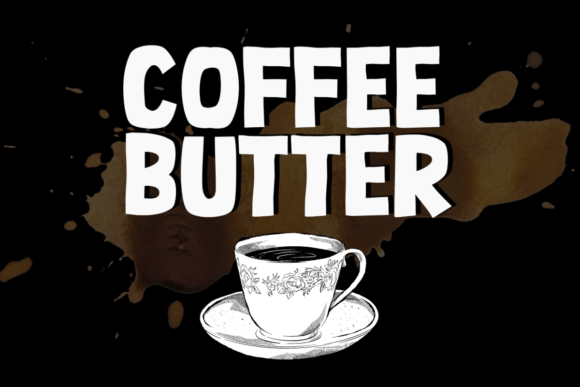
Introducing Coffee Butter Font, the ultimate choice for adding a touch of vintage charm to your creative endeavors! Created by the talented Deedeetype, this font is a must-have for anyone seeking to make a bold statement with their design.
Coffee Butter Font is the perfect blend of simplicity, boldness, and quirkiness, making it an ideal choice for a wide range of projects. Whether you're working on retro-themed posters, eye-catching banners, captivating social media graphics, elegant invitations, or heartfelt cards, this font will elevate your creations to a whole new level.
With Coffee Butter Font at your fingertips, you can effortlessly captivate your audience and leave a lasting impression. Its unique style and attention to detail will make your designs stand out from the crowd, ensuring that your message is conveyed with utmost impact.
Infuse your projects with the nostalgia of yesteryears and watch as they come to life with this remarkable display font. The carefully crafted curves and curves of Coffee Butter Font will transport your audience back in time, evoking feelings of warmth, authenticity, and familiarity.
Not only does Coffee Butter Font possess a timeless appeal, but it also offers unrivaled versatility. Its eye-catching presence is equally suited for both digital and print mediums, allowing you to effortlessly adapt it to your desired platform. From online advertisements to physical merchandise, this font will seamlessly fit into any context.